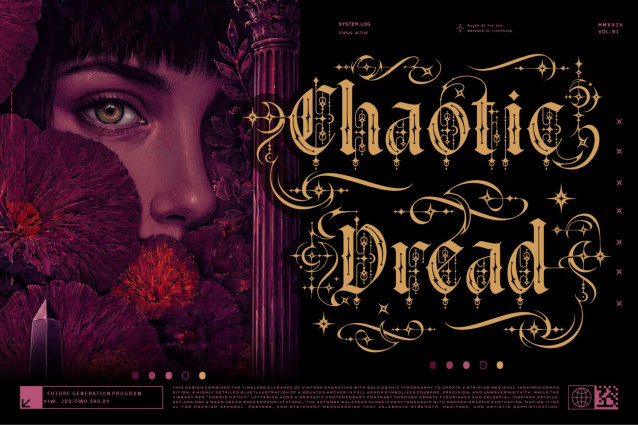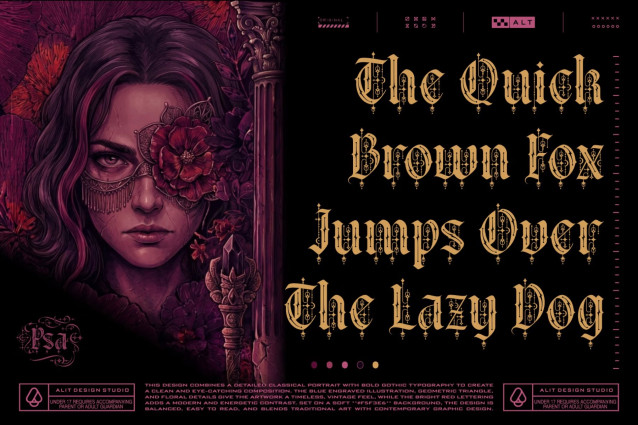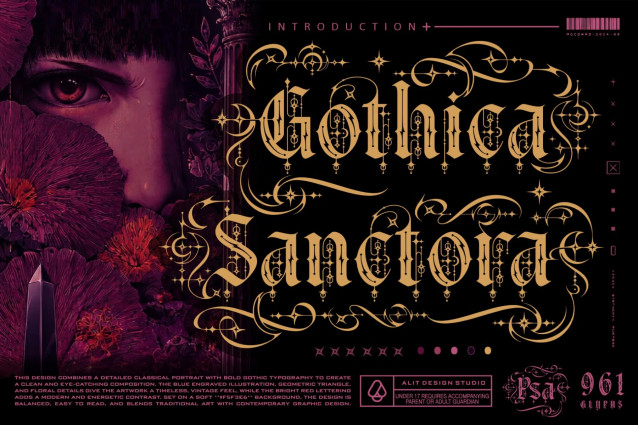
Gothica Sanctora – Mystical Ornate Gothic Typeface
Step into a realm of dark elegance and timeless craftsmanship with Gothica Sanctora, a breathtakingly detailed gothic display typeface. Blending vintage blackletter heritage with striking contemporary flourishes, this font is designed to make a powerful visual statement.
Gothica Sanctora goes beyond standard typography by incorporating intricate celestial stars, mystical drops, and elegant swirls directly into the letterforms. Whether you are designing for a modern streetwear brand, a dark fantasy novel, or premium vintage merchandise, this typeface provides the perfect balance of readability and elaborate artistic flair.
To give you absolute creative freedom, Gothica Sanctora is packed with a massive 961 glyphs. It features an extensive collection of stylistic alternates (ranging from SS01 to SS10) that allow you to customize your lettering with varying degrees of ornate detailing—from subtle thorny vines to majestic, sweeping swashes.